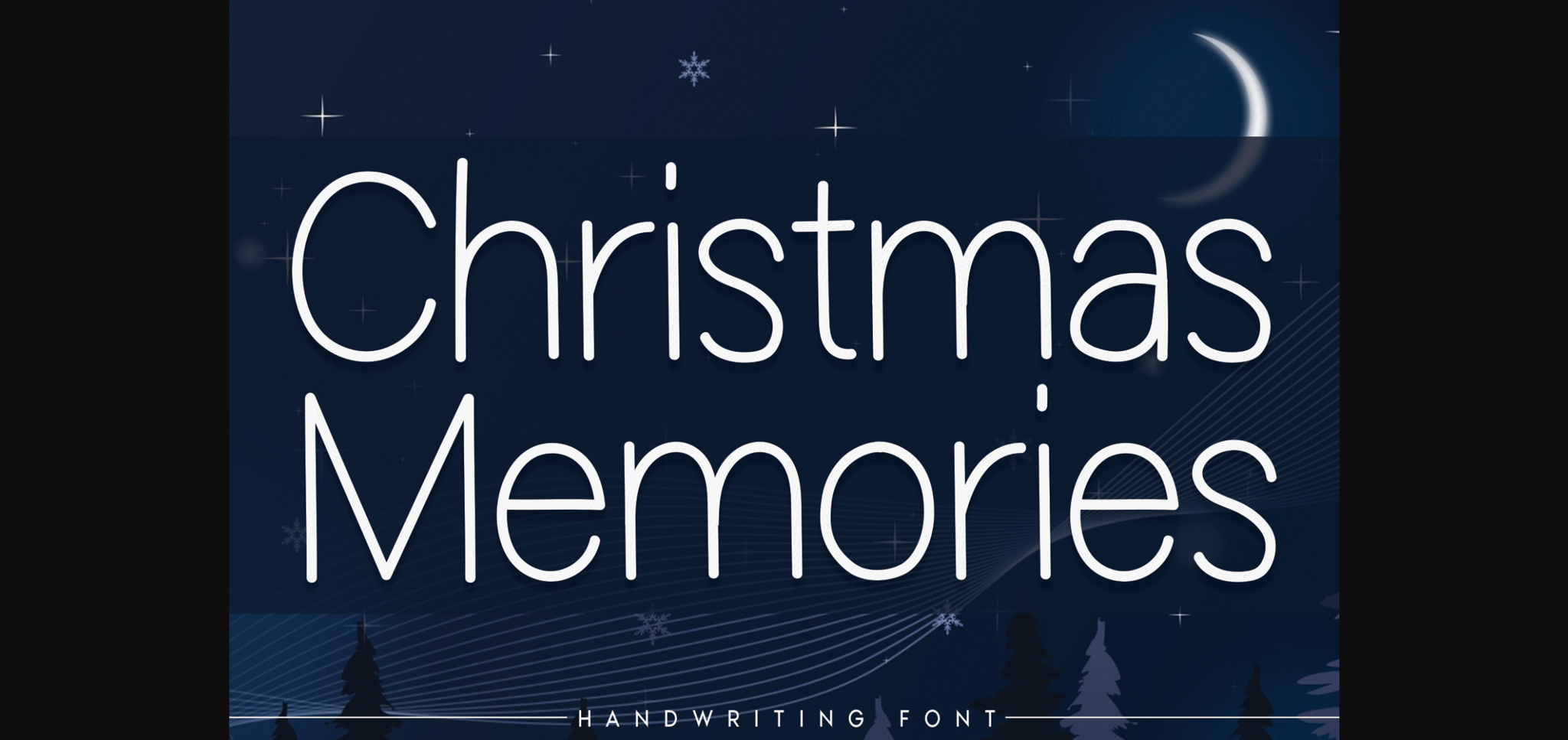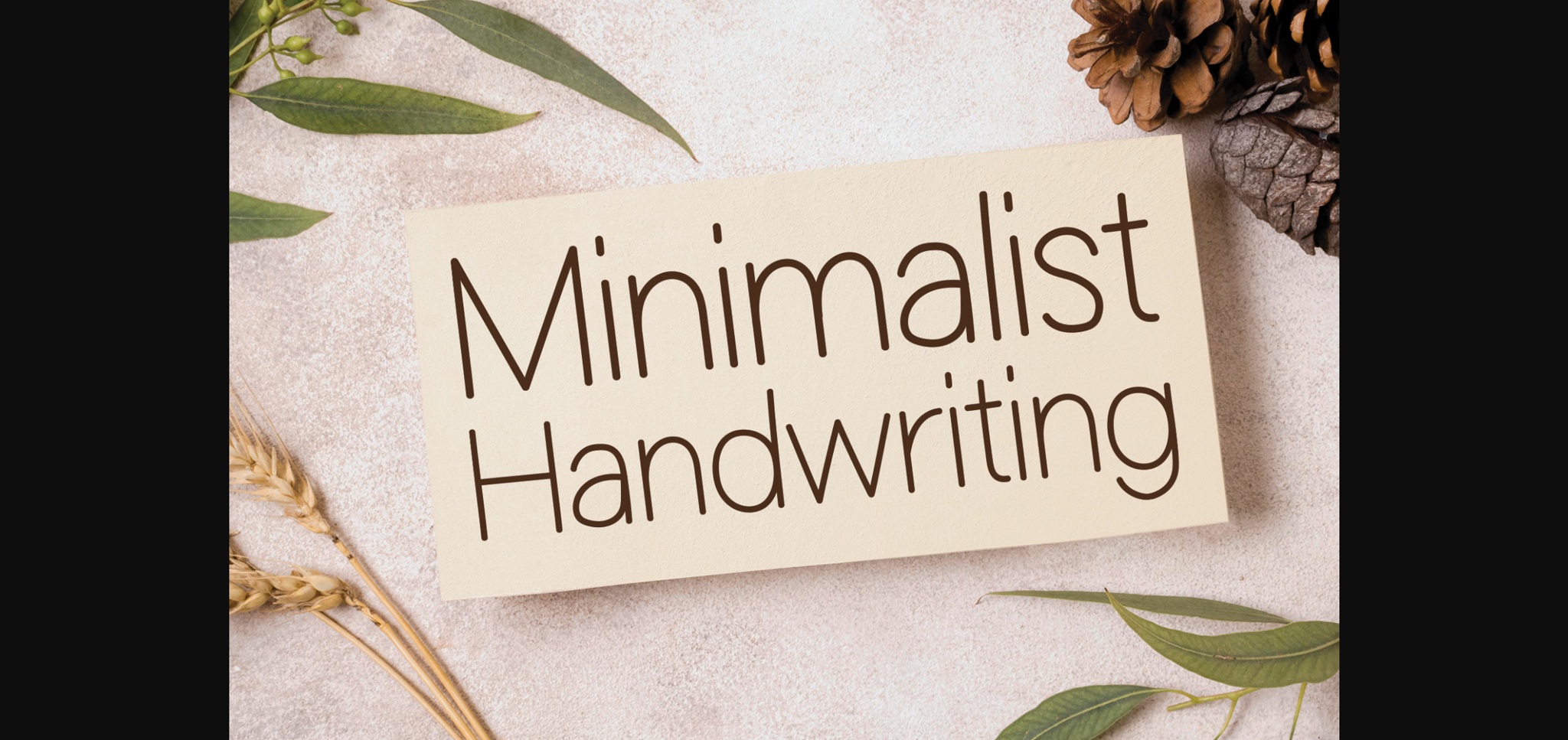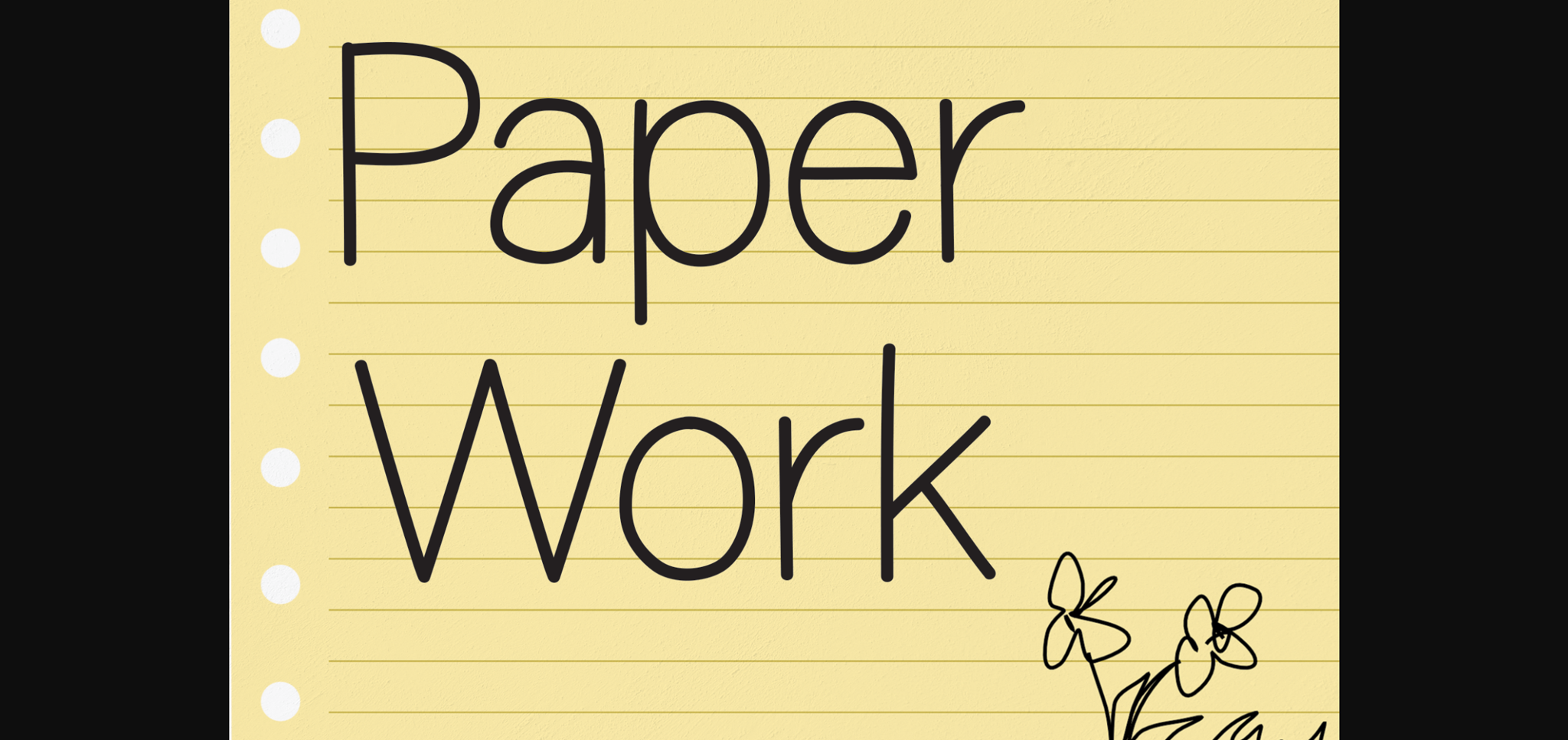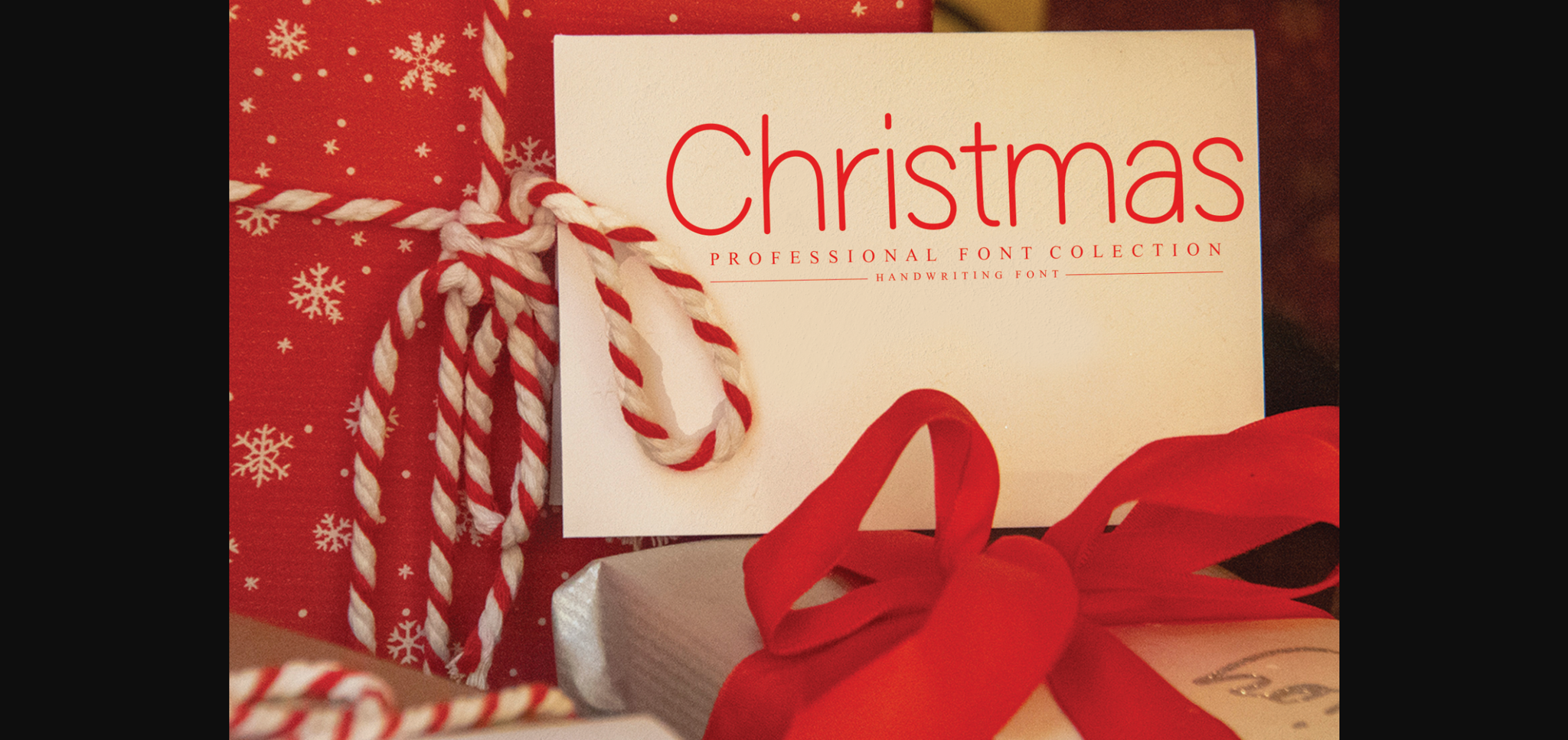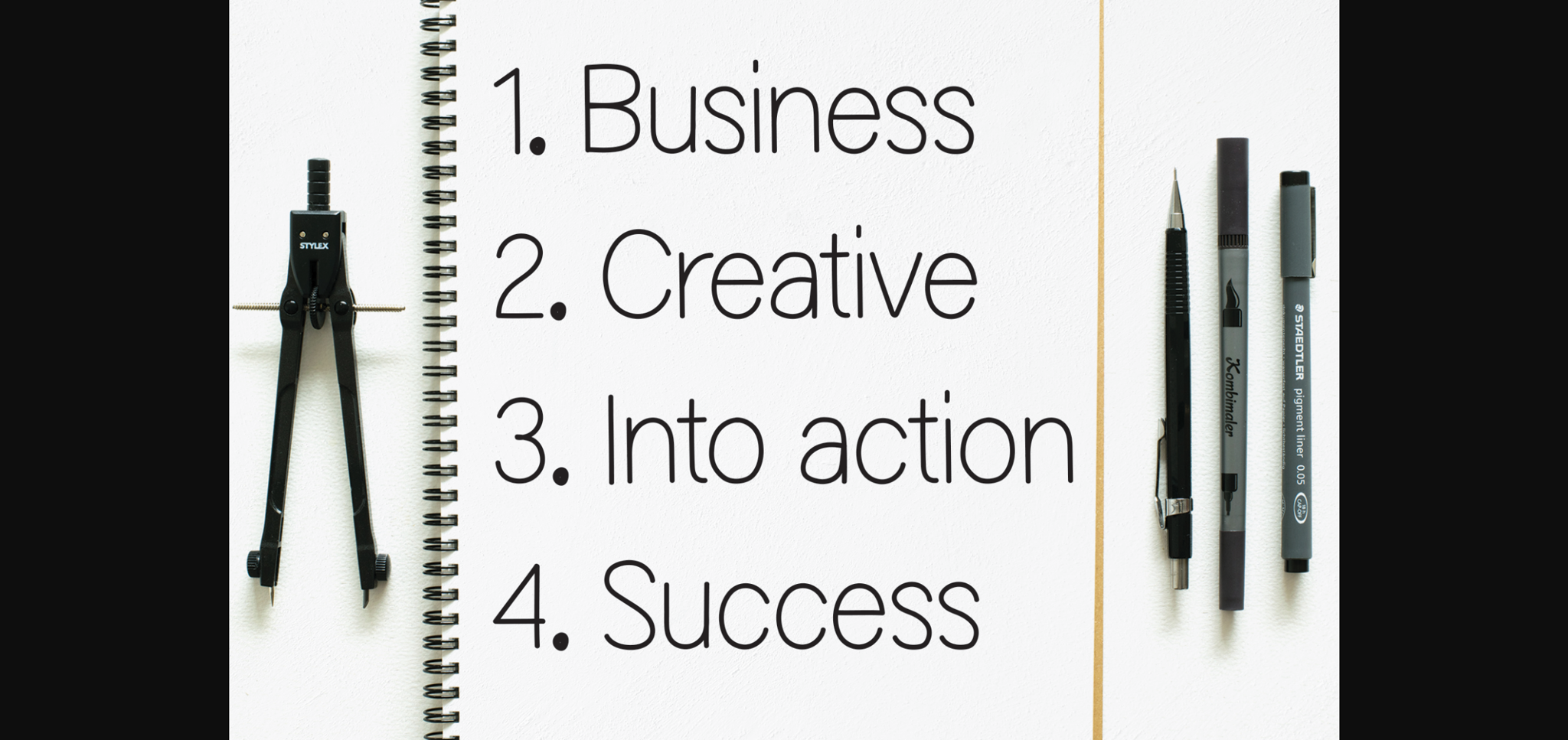
Christmas Memories Font
About Christmas Memories Font
Christmas Memories is a simple and classic sans serif font. Its natural and unique style makes it incredibly fitting to a large pool of designs.